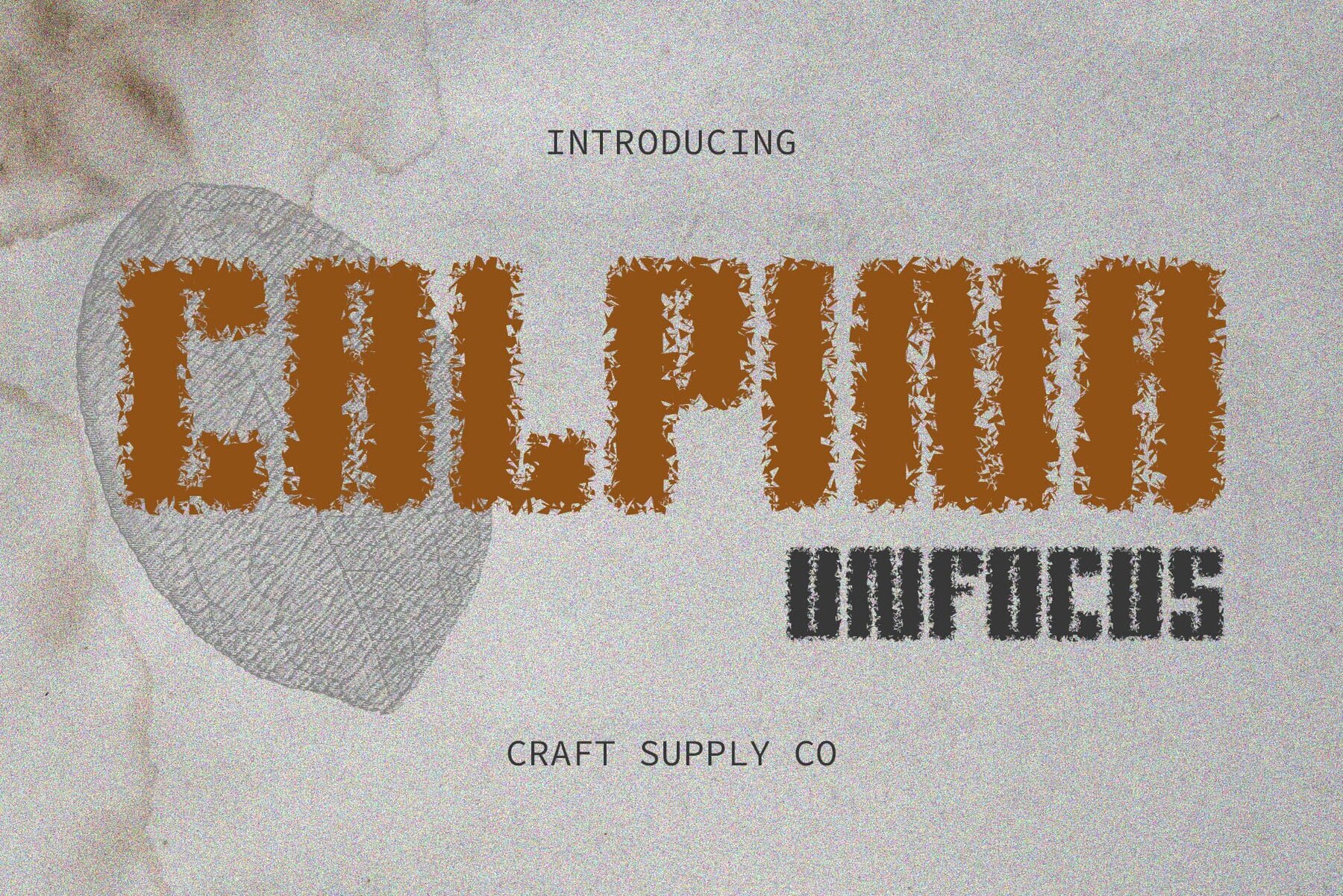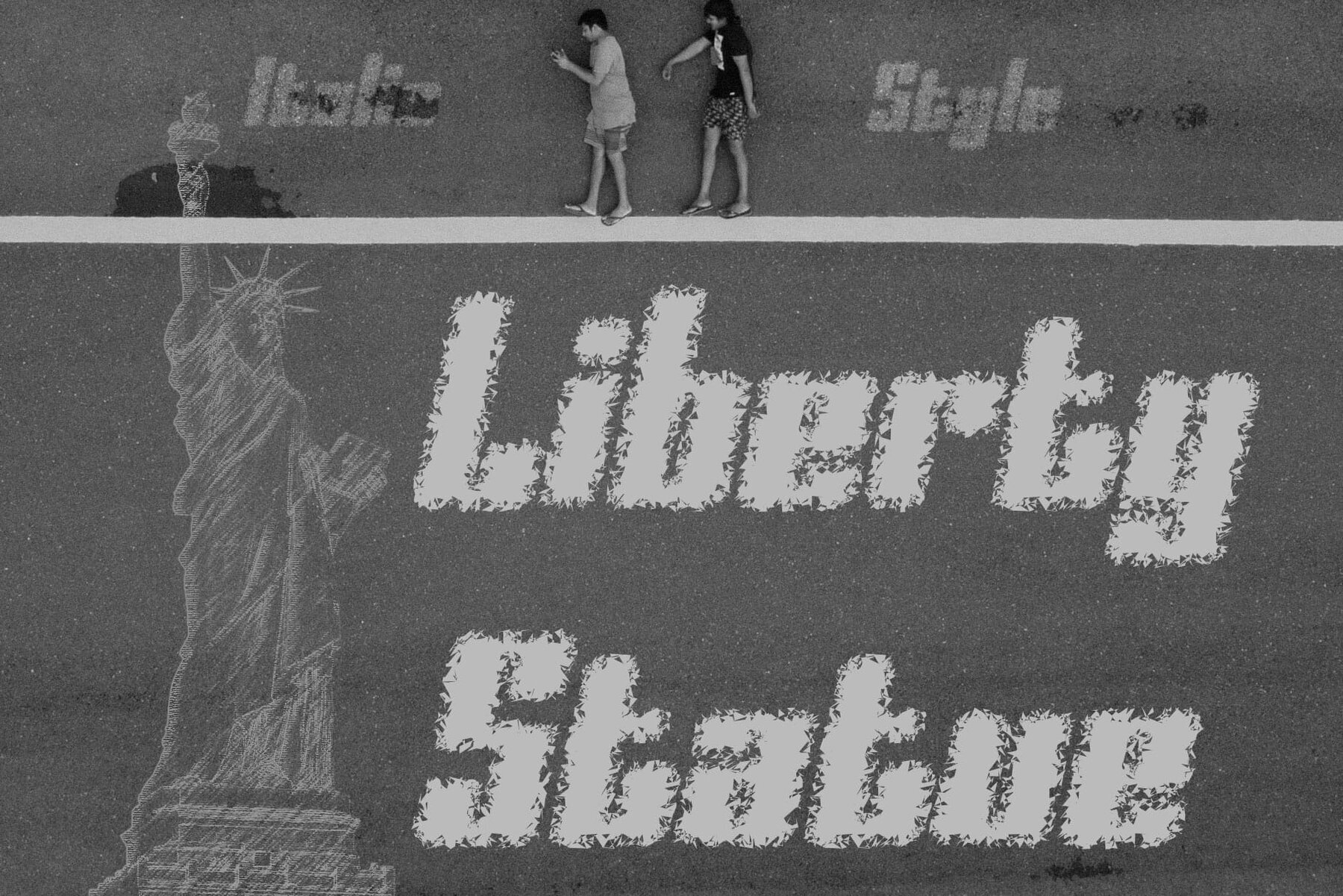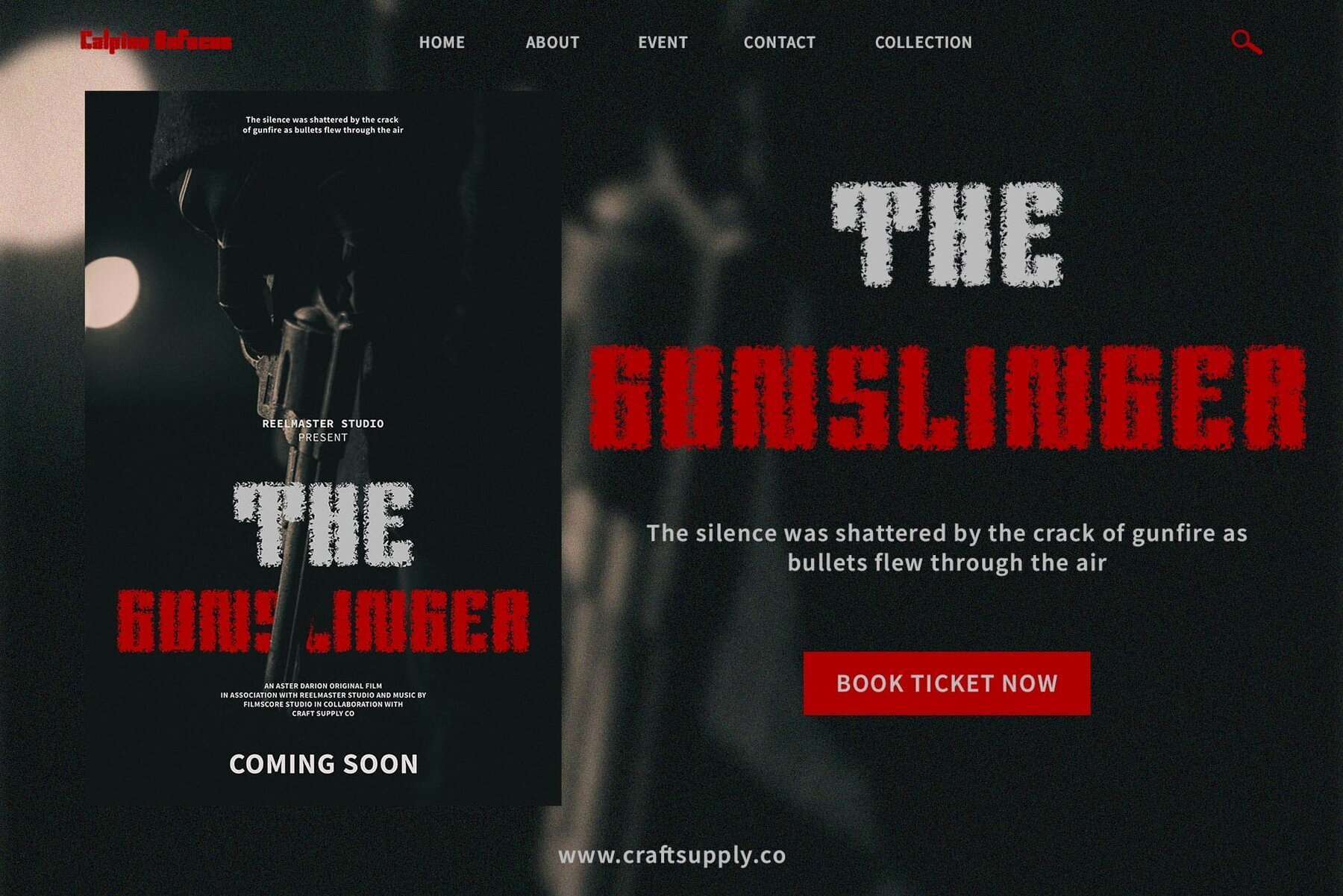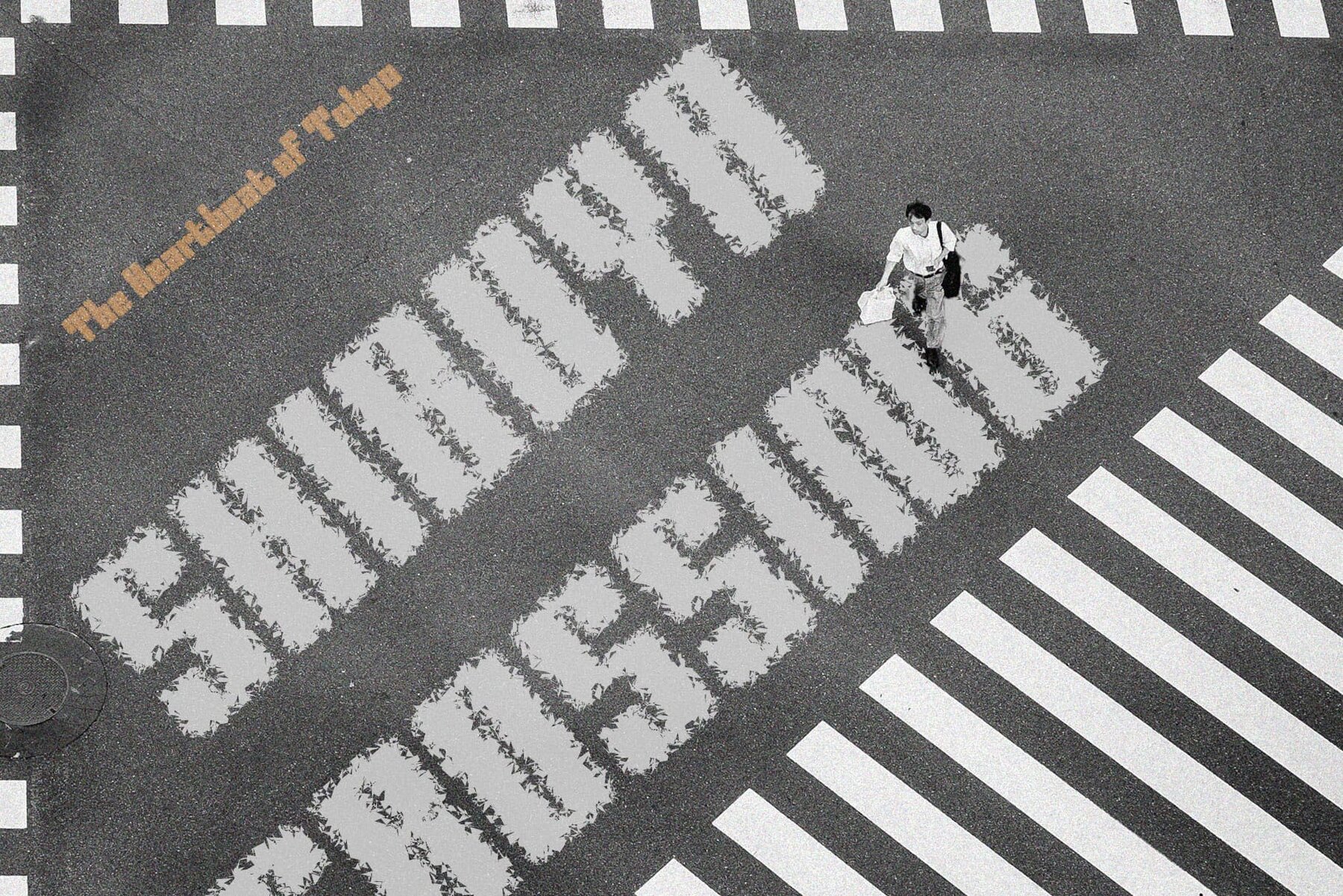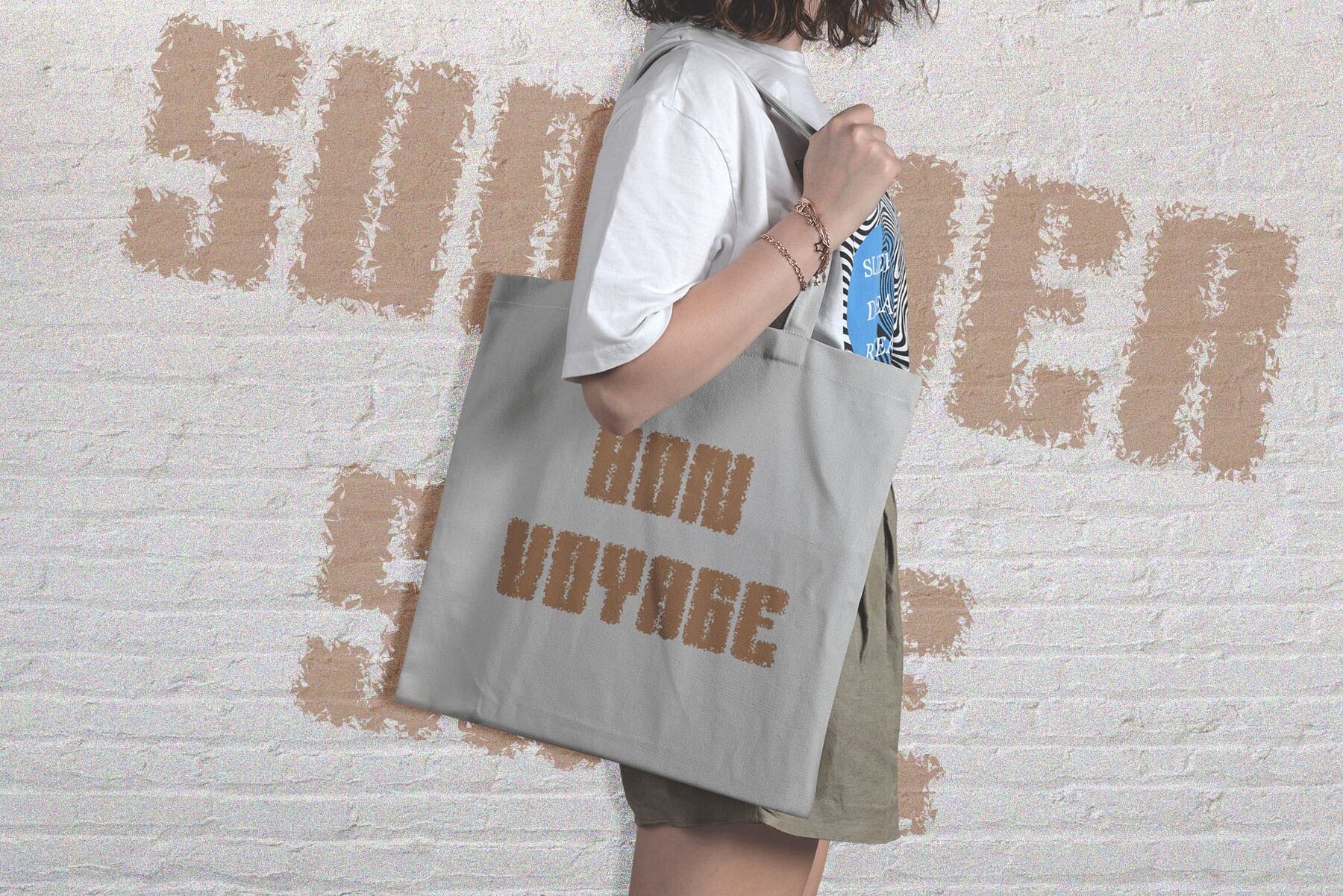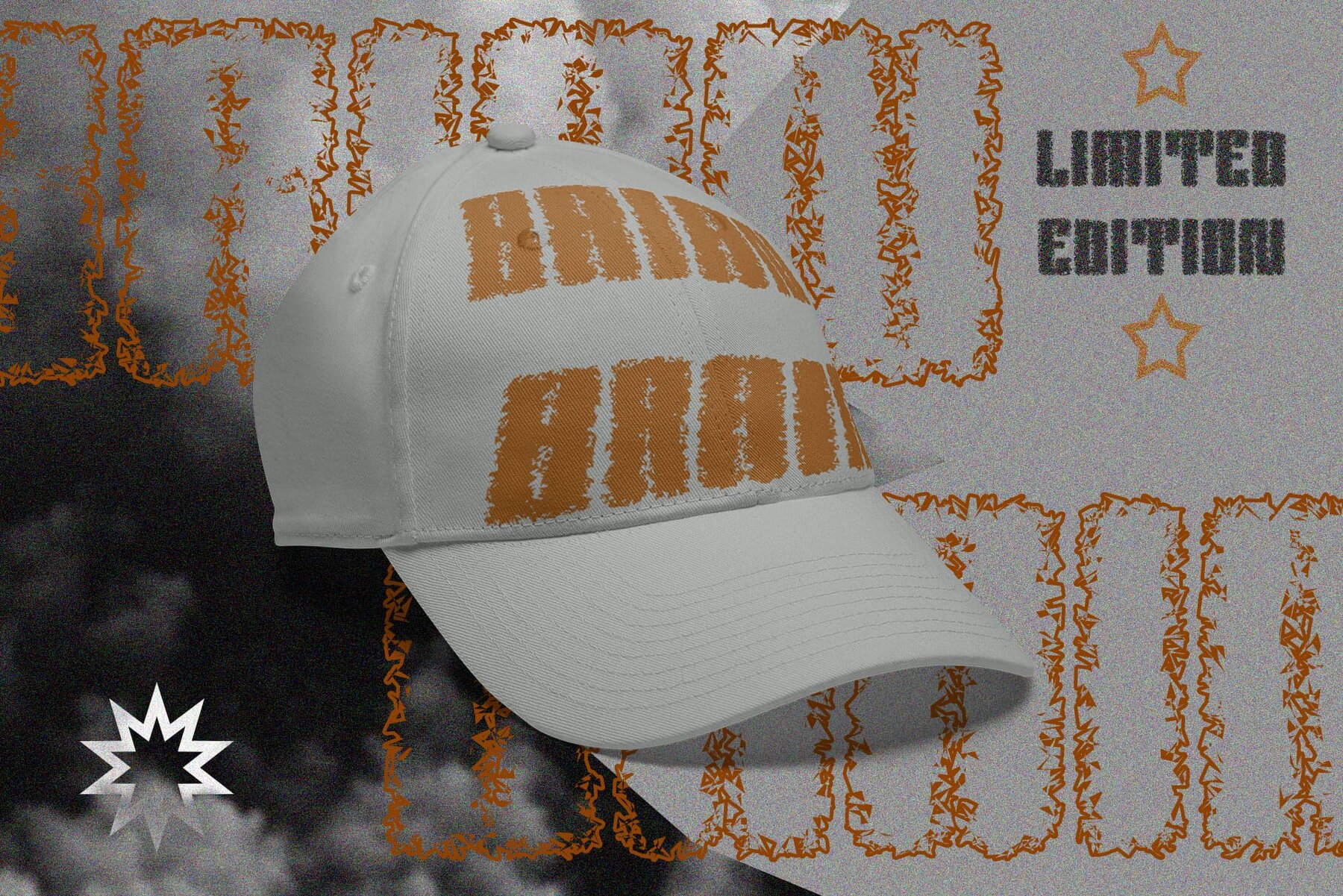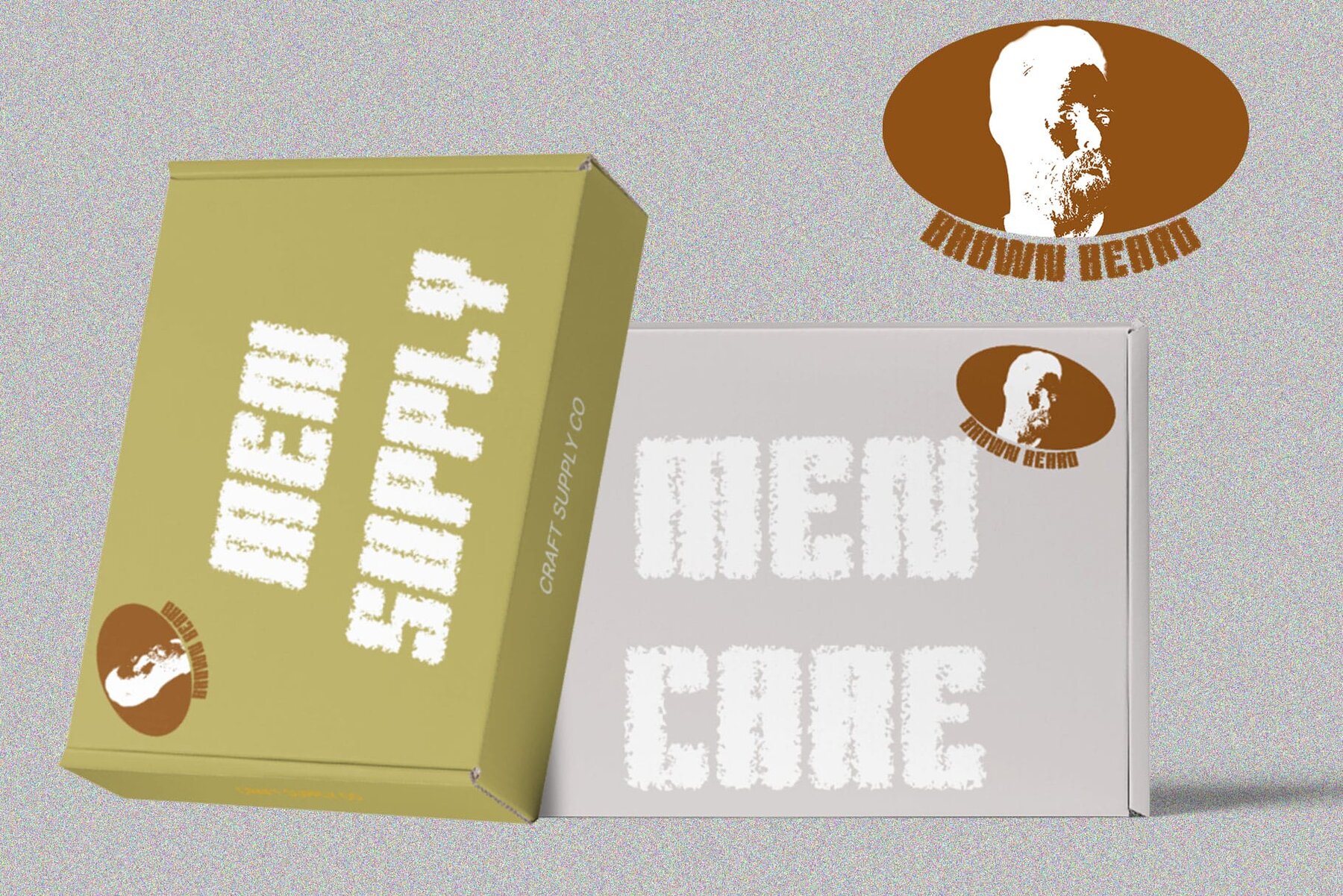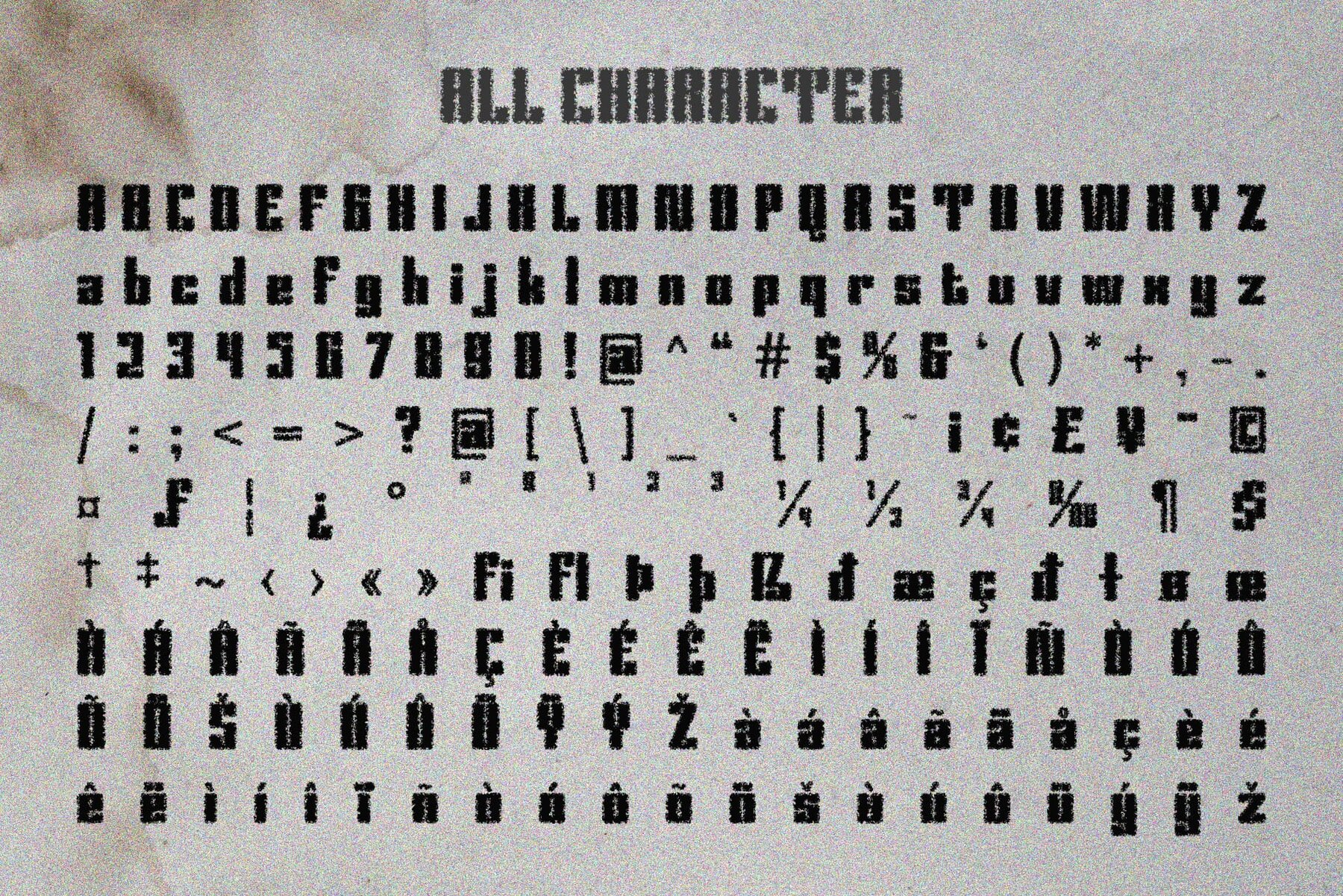
Calpina Unfocus Font
Calpina Unfocus is a display font crafted by Craft Supply Co., characterized by its bold, boxy structure that promises high visual impact. Its high-contrast design, sharp angles, and clean lines enhance its modern and dynamic appearance. This font incorporates a distinctive design with boxy shapes that deliver a striking visual effect. The contrast between thick and thin lines, combined with sharp geometric cuts, makes Calpina Unfocus particularly attractive for headline and branding purposes. The signature Unfocus effect of this font adds a unique twist, simulating a slight blur that brings an artistic and contemporary edge to the typography. This effect can be particularly effective in creative projects where a sense of motion or abstraction is desired. Calpina Unfocus is versatile for various design projects, including advertising, poster design, and digital media that demand a font with character and presence. Its boldness makes it ideal for headings and any application where attention-catching typography is crucial.Calpina Unfocus: Bold and Boxy Display Font
High Contrast Design
Unfocus Effect